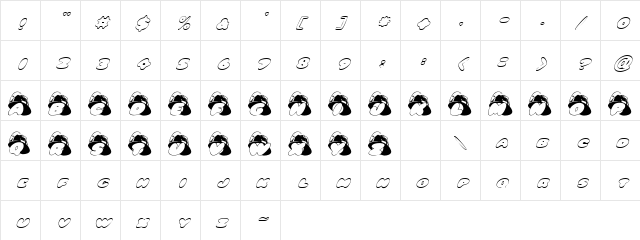
AL Fire Helmet Regular
Design Context for AL Fire Helmet
AL Fire Helmet is a composed and adaptable typeface that performs quietly and consistently across a wide range of design contexts.